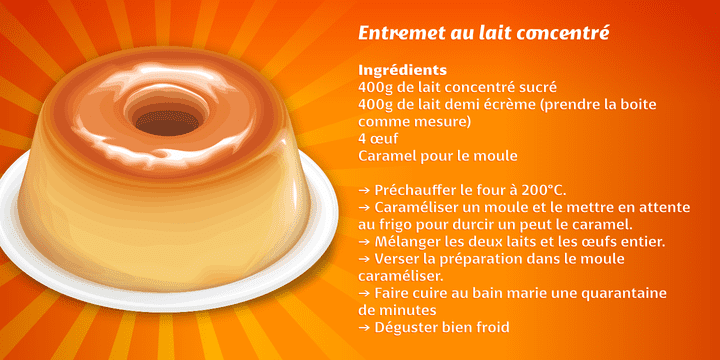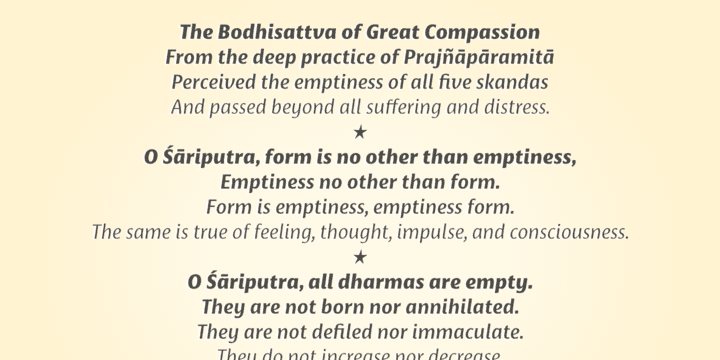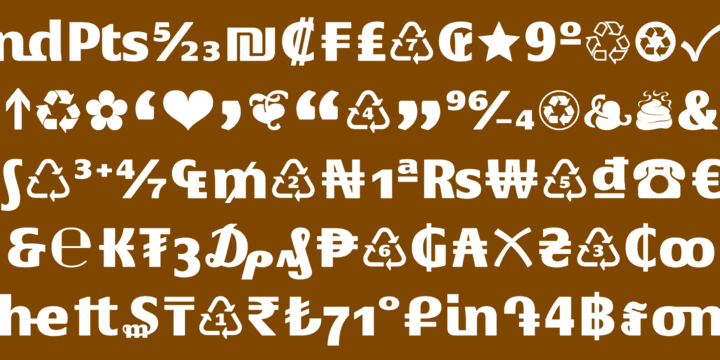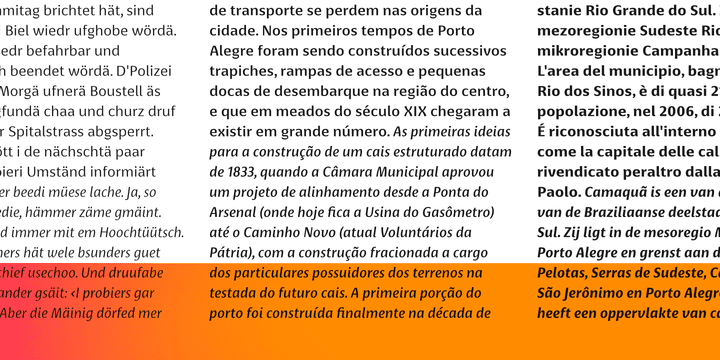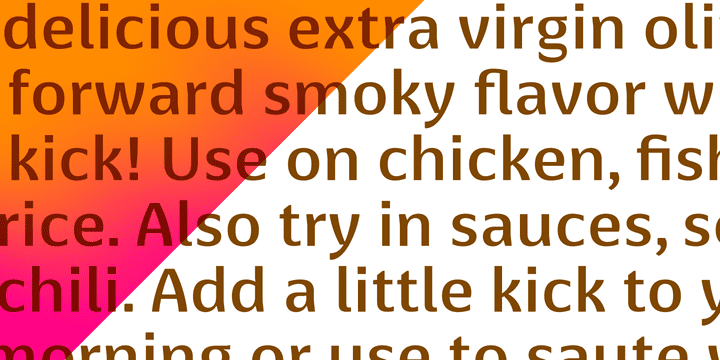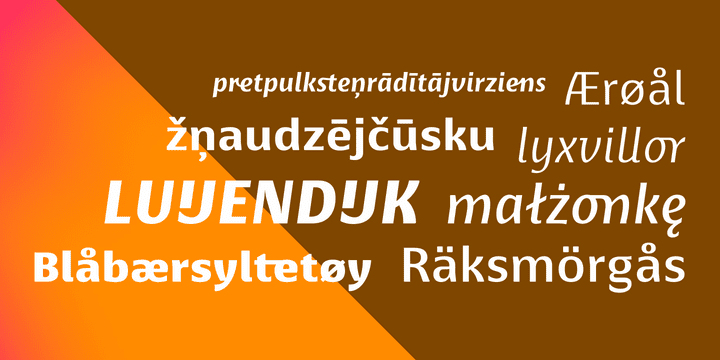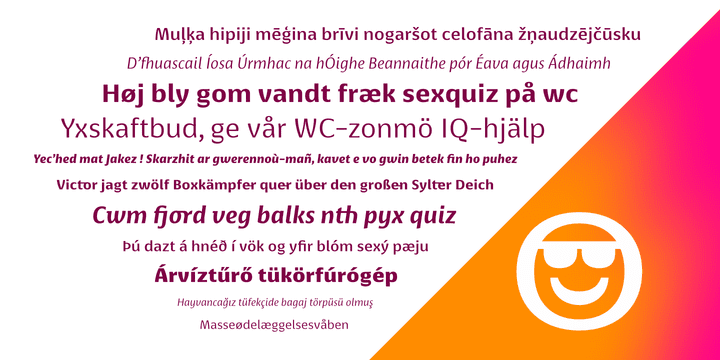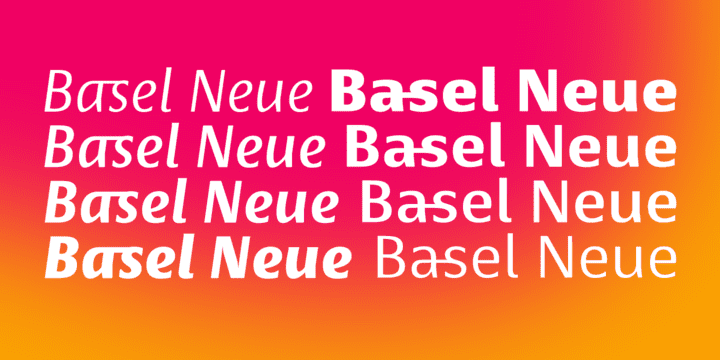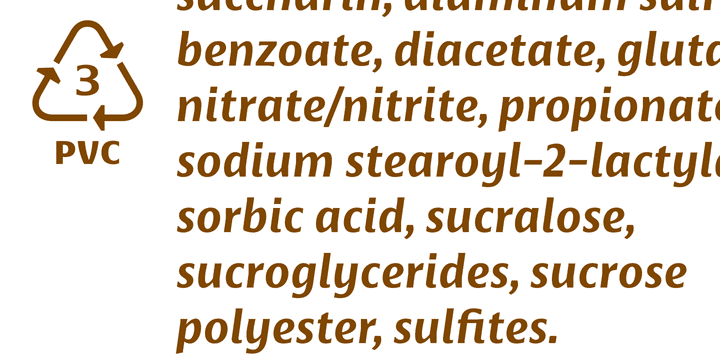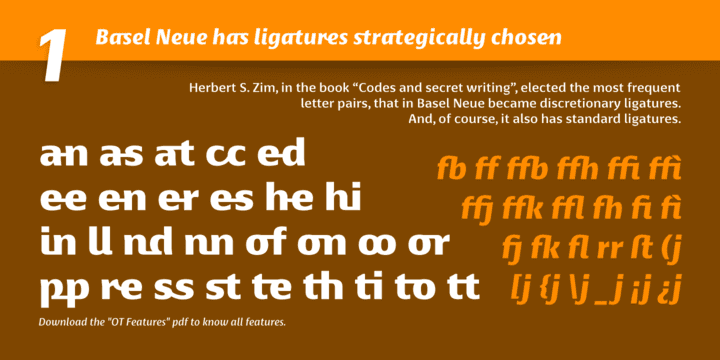
Basel Neue Family (8 fonts)
1) Basel Neue has ligatures strategically chosen. Herbert S. Zim, in the book “Codes and secret writing”, elected the most common letter pairs of English, that in the Basel Neue became discretionary ligatures. And, of course, it also has standard ligatures.
2) It’s a fun typeface. Basel Neue has a set of emoticons and fun symbols that can be activated by discretionary ligatures. Type “:-)” and a smileface appears. Type “8-)” and a smiley with glasses appears. Type “”, “” and “” and a telephone, star and heart appears. Or “ ”... and a graceful corresponding symbol will appear.
3) Basel Neue contains lots of useful glyphs and features. All versions have 12 recycling symbols, 7 to different types of plastic, and over 30 currency symbols. It also has fractions, old style-, lining-, tabular numbers and other OpenType features.
4) It has an organized and large character set. The fonts have extended character set to support CE, Baltic, Turkish as well as Western European languages. If you work with languages like Catalan, German, Croatian, Romanian, Dutch, Turkish, for example, the font will use the correct ligatures or characters used in these languages.
5) It’s rigorously tested. Basel Neue is available in OpenType PS e TT flavors and each version undergoes a battery of tests, with a systematic review of nodes, curves, spacing and internal data. This eliminates the possibility of errors in the font.